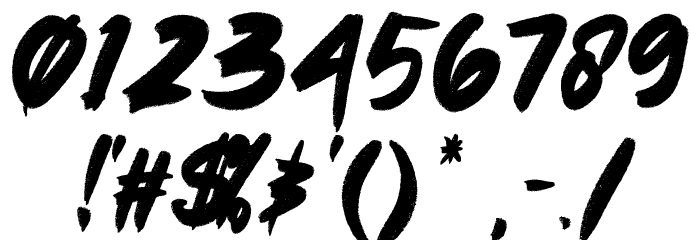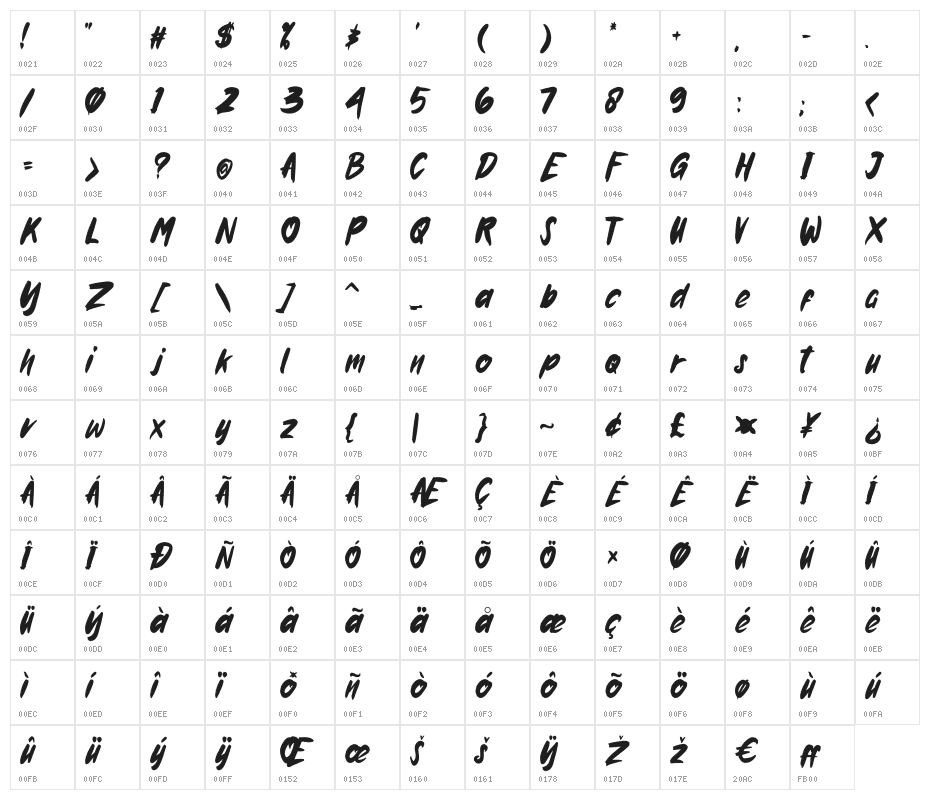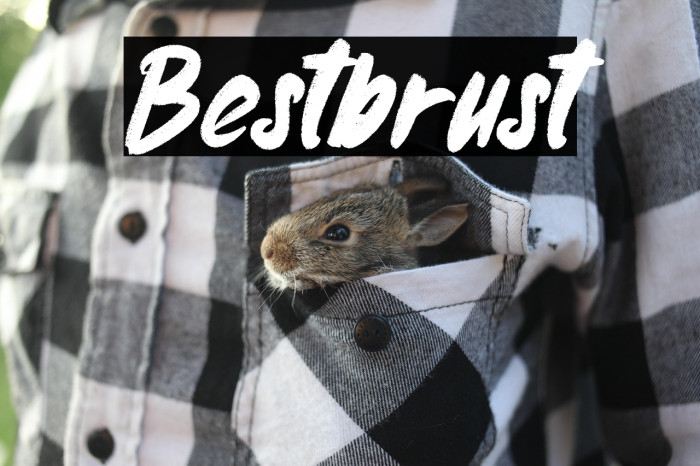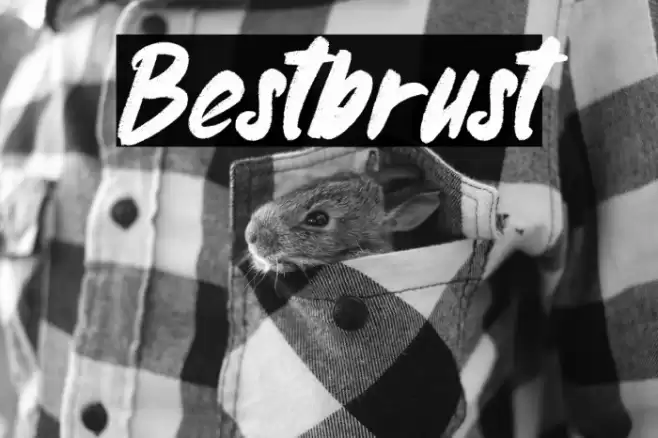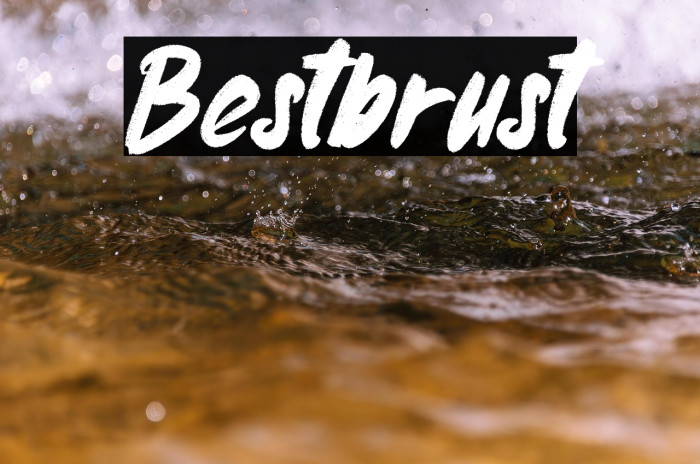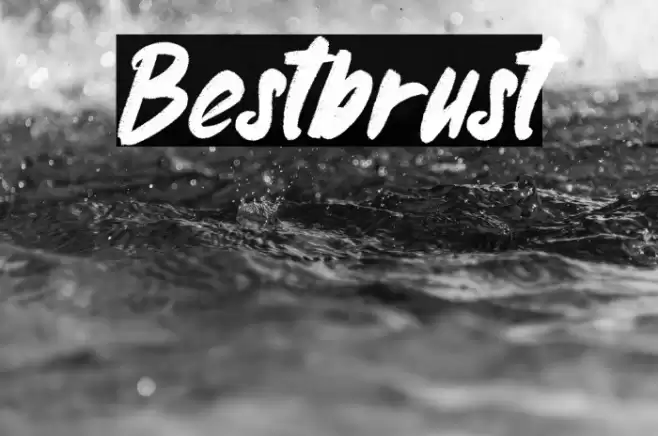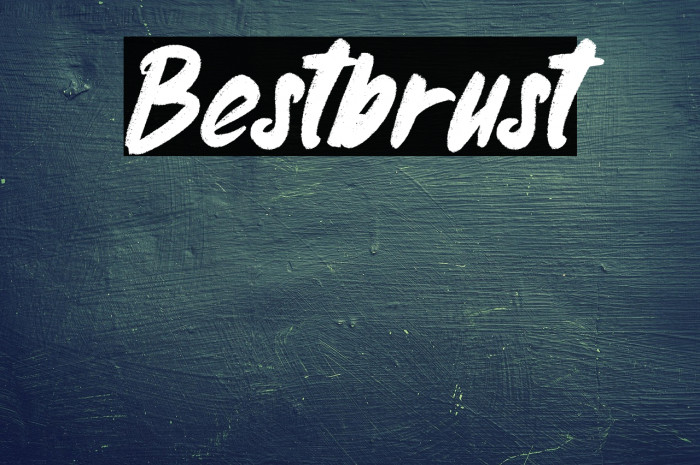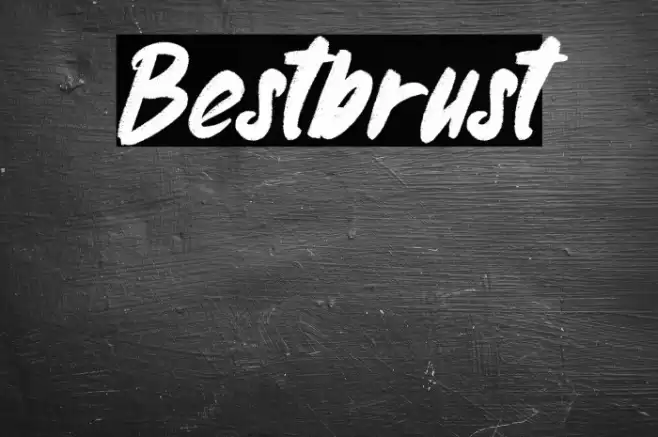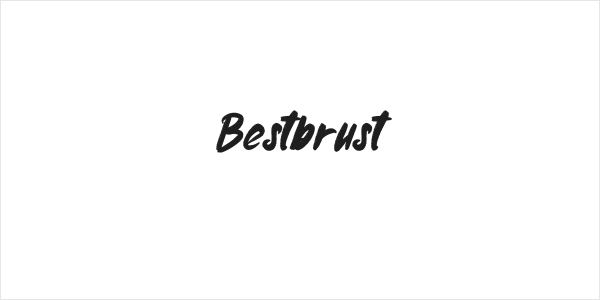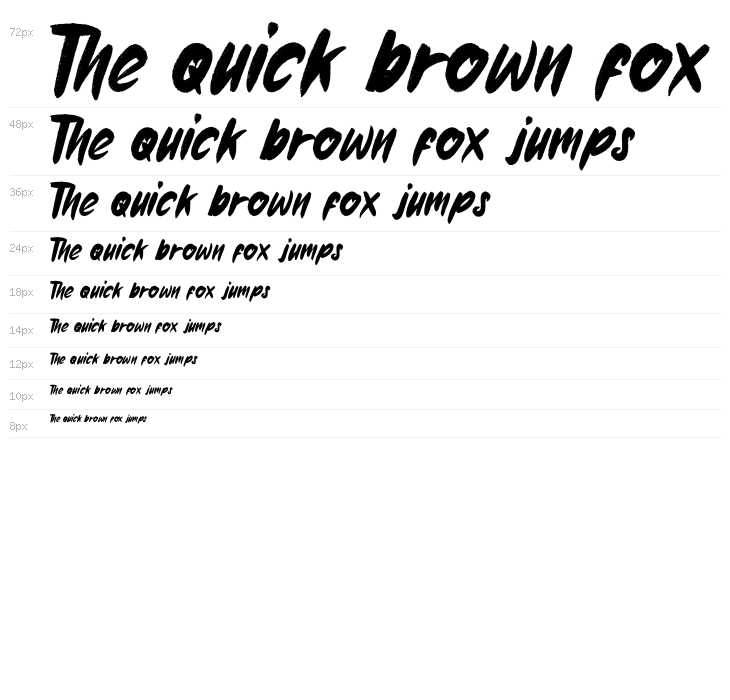
Bestbrust Font
Bestbrust Description
This font features a bold, energetic script style with a hand-painted appearance. The letters are dynamic and slightly slanted, giving a sense of movement and fluidity. The strokes are thick and expressive, with varying widths that add a lively character to the text. The uppercase and lowercase letters maintain a consistent style, while the numbers and special characters complement the overall design. This font is ideal for creating eye-catching headlines and designs that require a personal, artistic touch.